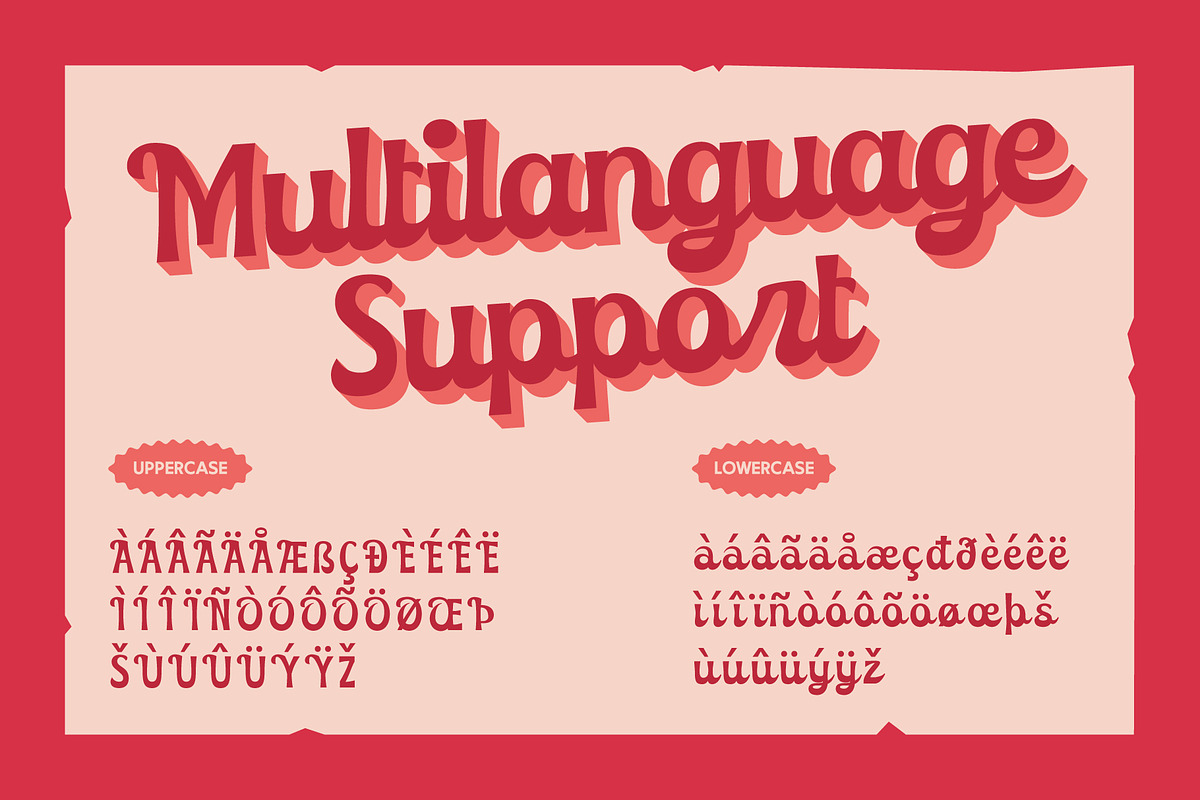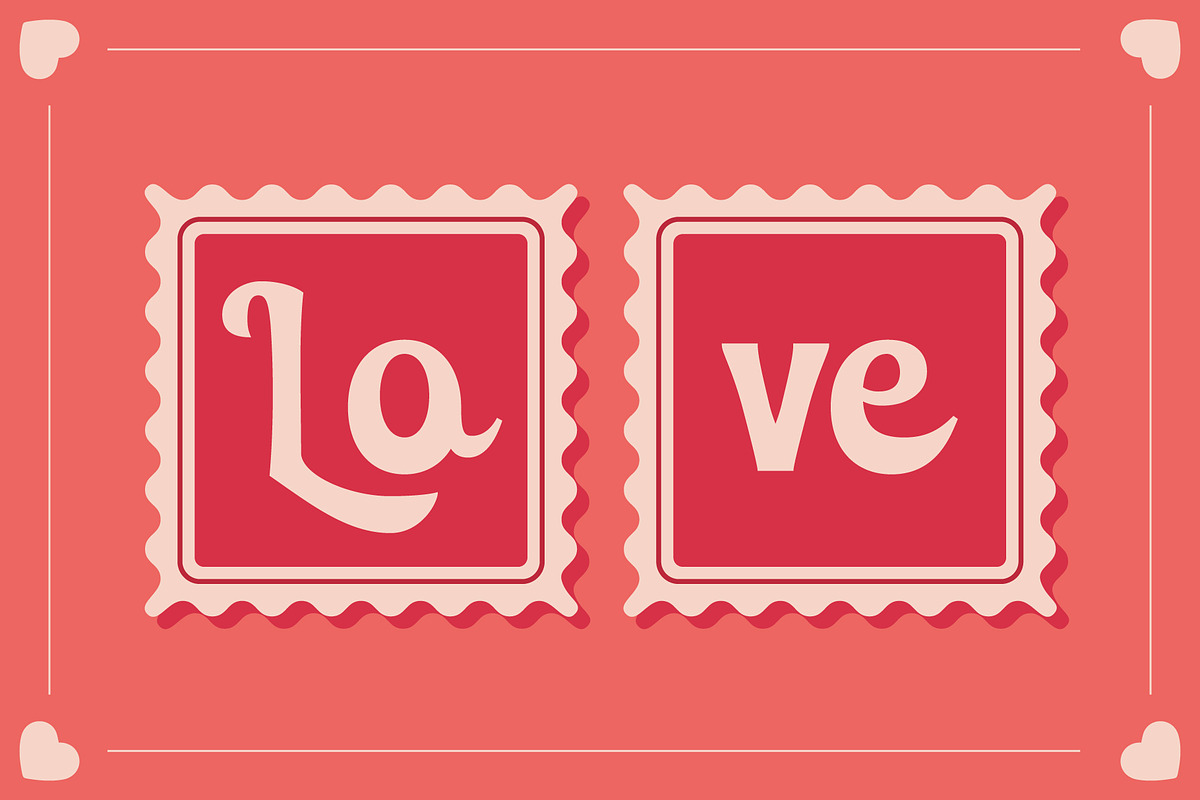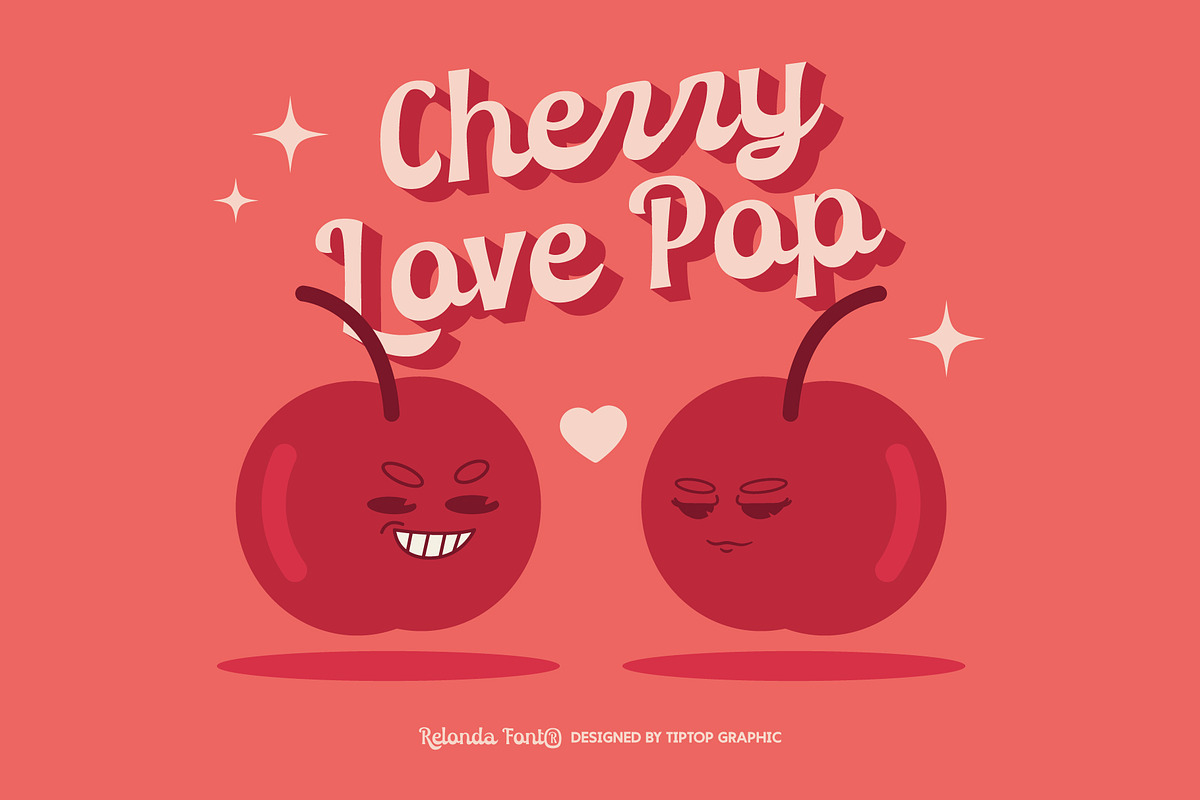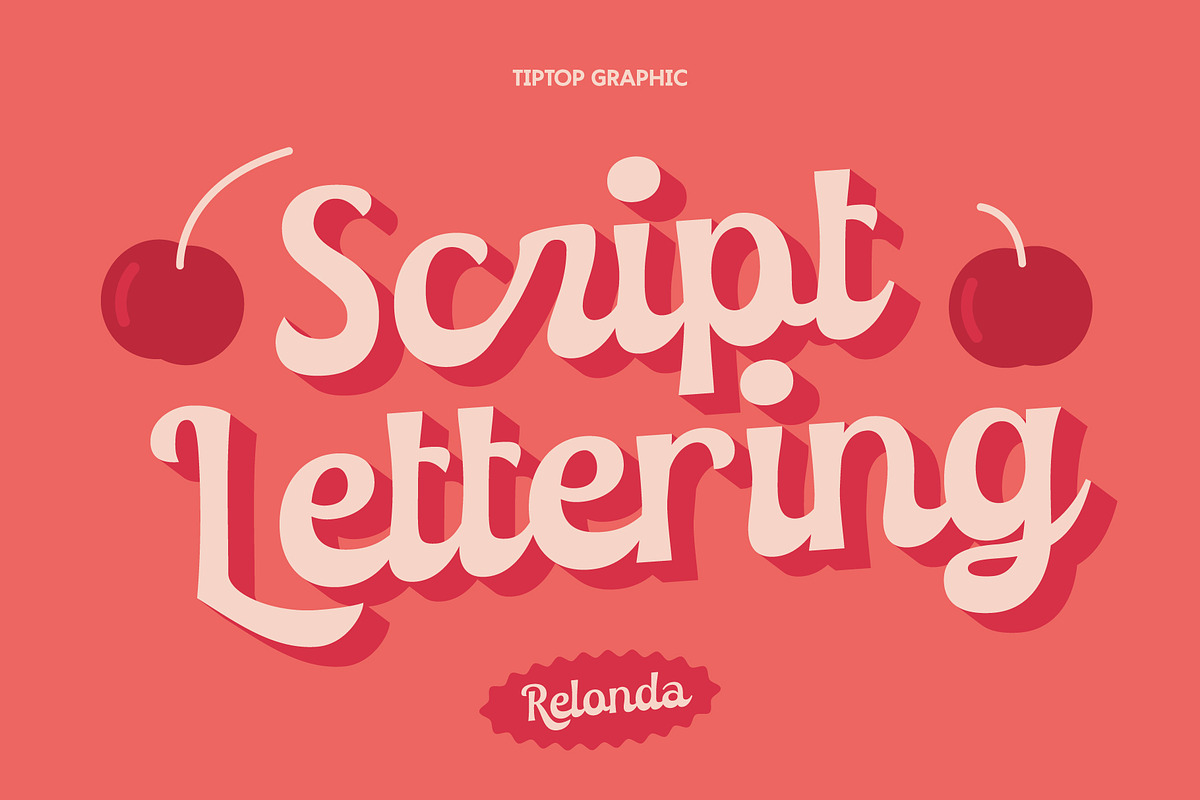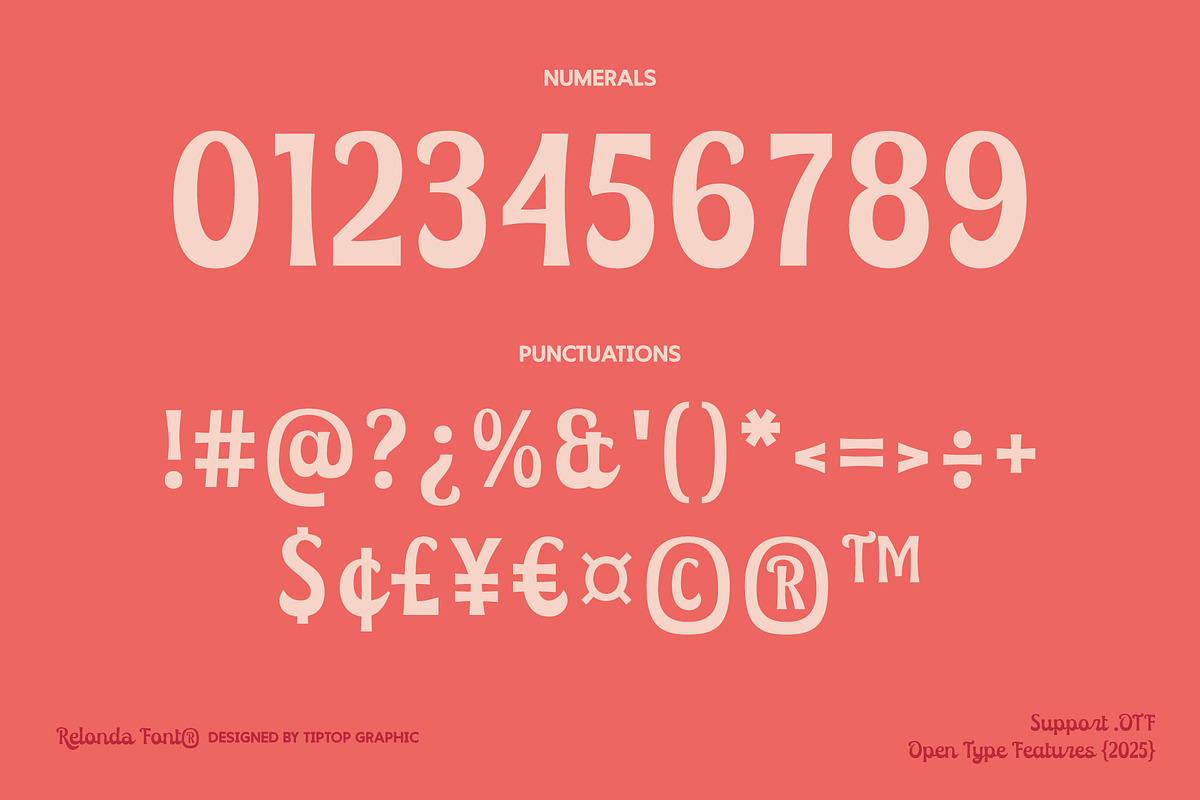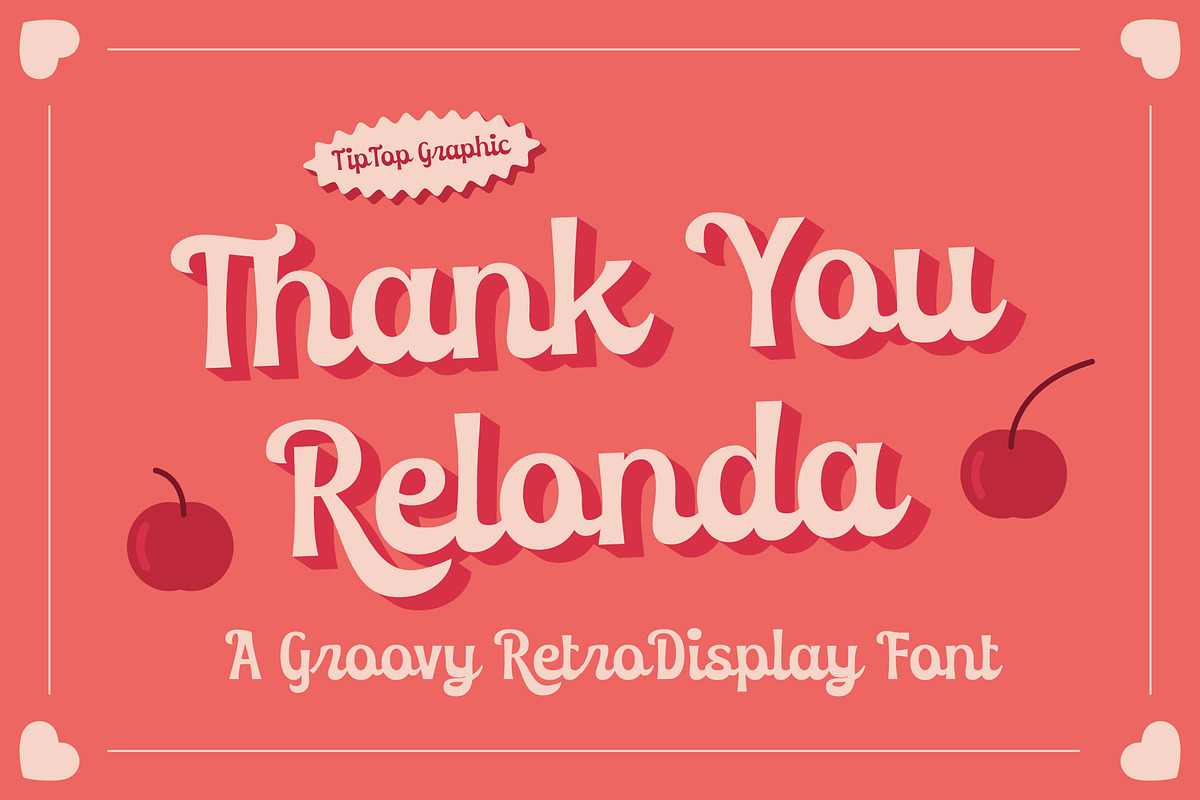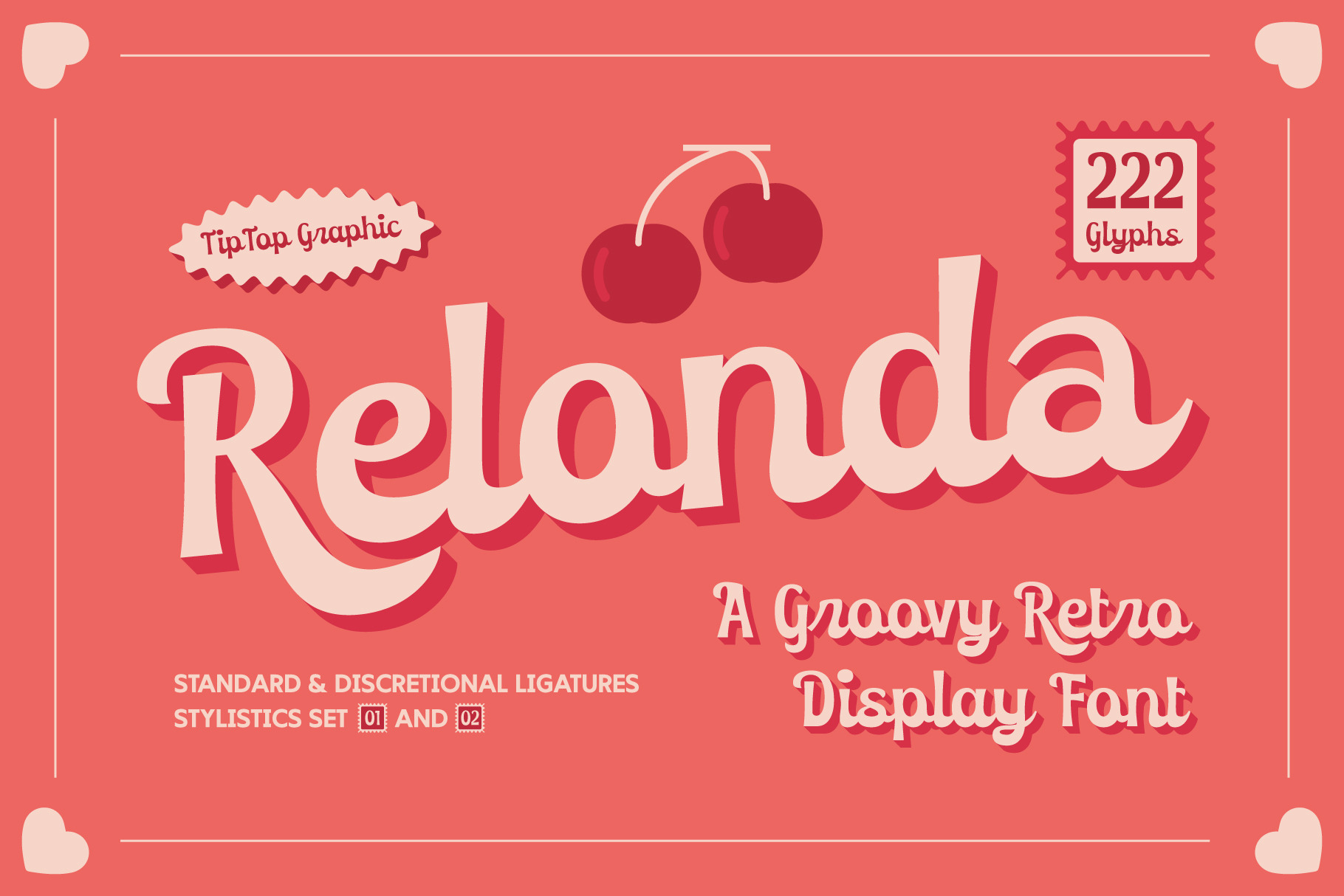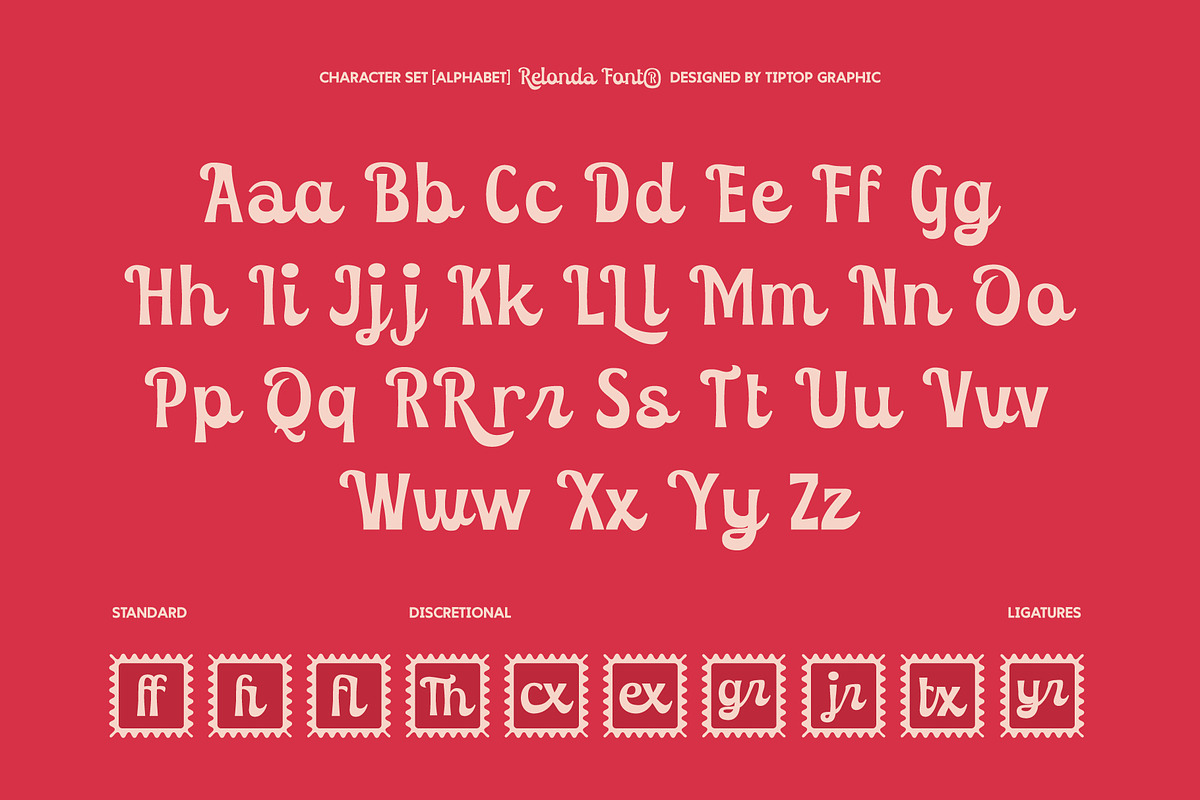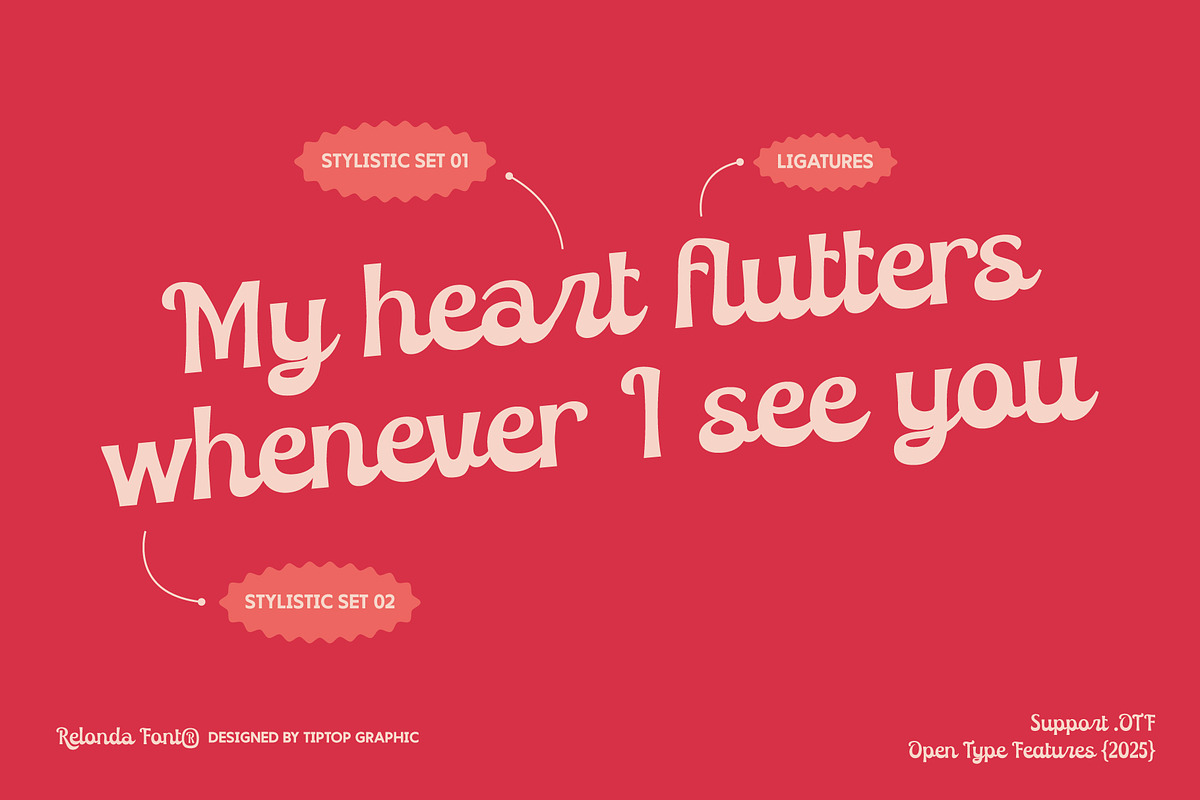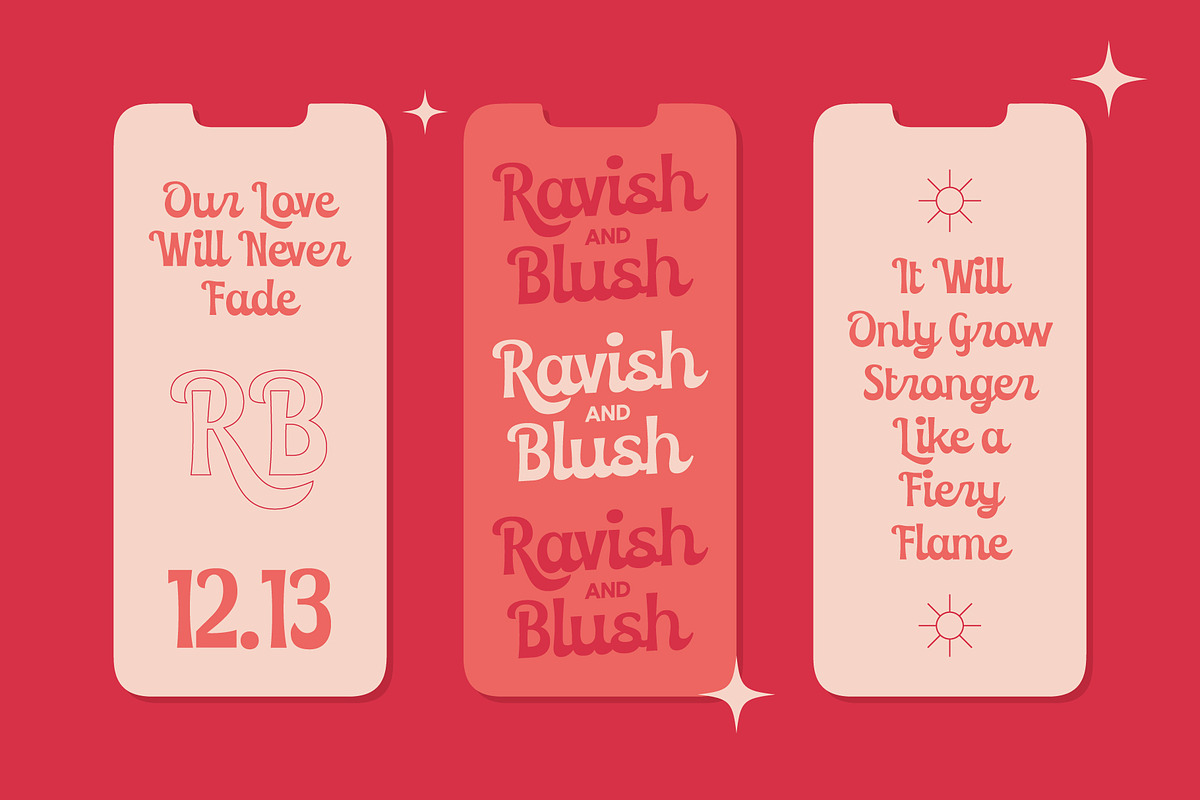
Relonda – Groovy Retro Display Font
Retobella is a charming blend of nostalgia and romance, perfect for capturing the essence of Retro Valentine vibes. With its bold, flowing curves and vintage-inspired letterforms, this script font exudes warmth and elegance, making it ideal for love letters, wedding invitations, greeting cards, and romantic branding. Retobella brings back the timeless beauty of classic handwriting while adding a modern twist, ensuring your designs stand out with a touch of retro sophistication. Let Retobella infuse your projects with heartfelt charm and timeless romance!
Relonda – Groovy Retro Display Font features:
- Character Set (Uppercase & Lowercase)
- Punctuation & Numbers
- Standard & Discretional Ligatures
- Stylistics Set 01 & 02
Elevate and explore the design possibilities with this Retro Valentine Design Font!